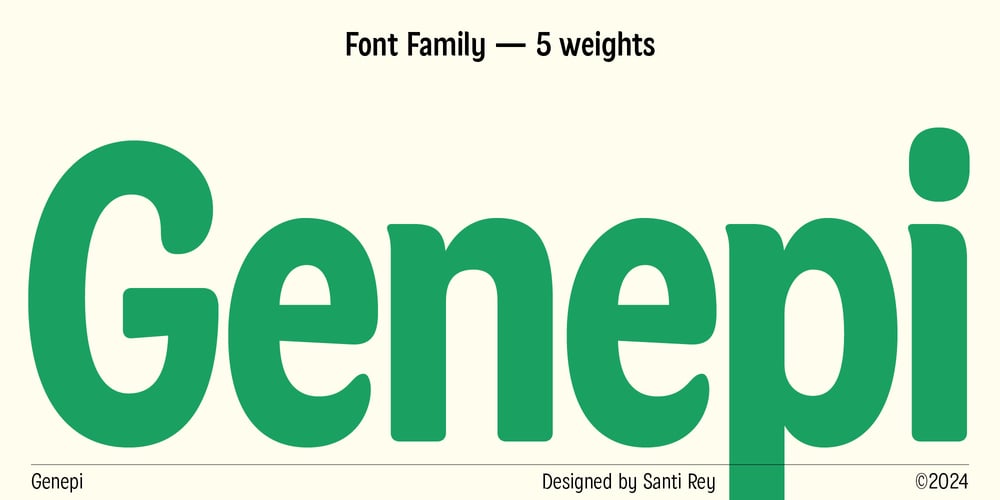
Genepi Font Family was designed by Santi Rey and published by Santi Rey. Genepi contains 5 styles and family package options. Genepi is not just a typeface; it’s a vibe. Cool, friendly and charismatic.Inspired by The Alps, Genepi channels the welcoming spirit of alpine living. Its soft edges and gentle curves are like a snug cabin in the mountains, inviting and homely.Designed with versatility in mind, Genepi is your go-to for brands that want to be approachable, friendly, and effortlessly cool.This font family comes in 5 weights, ensuring your message is delivered with the perfect balance of impact and subtlety. And hey, no language barriers here – Genepi supports all Latin-based languages.